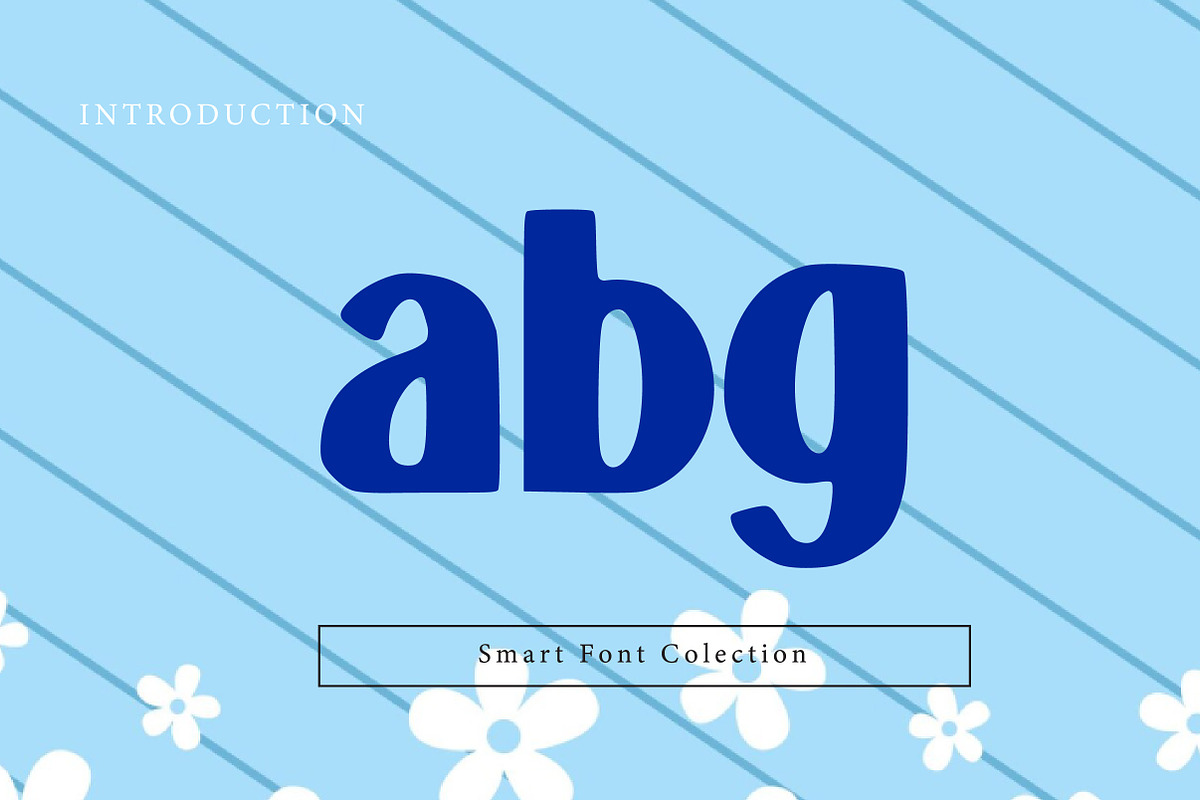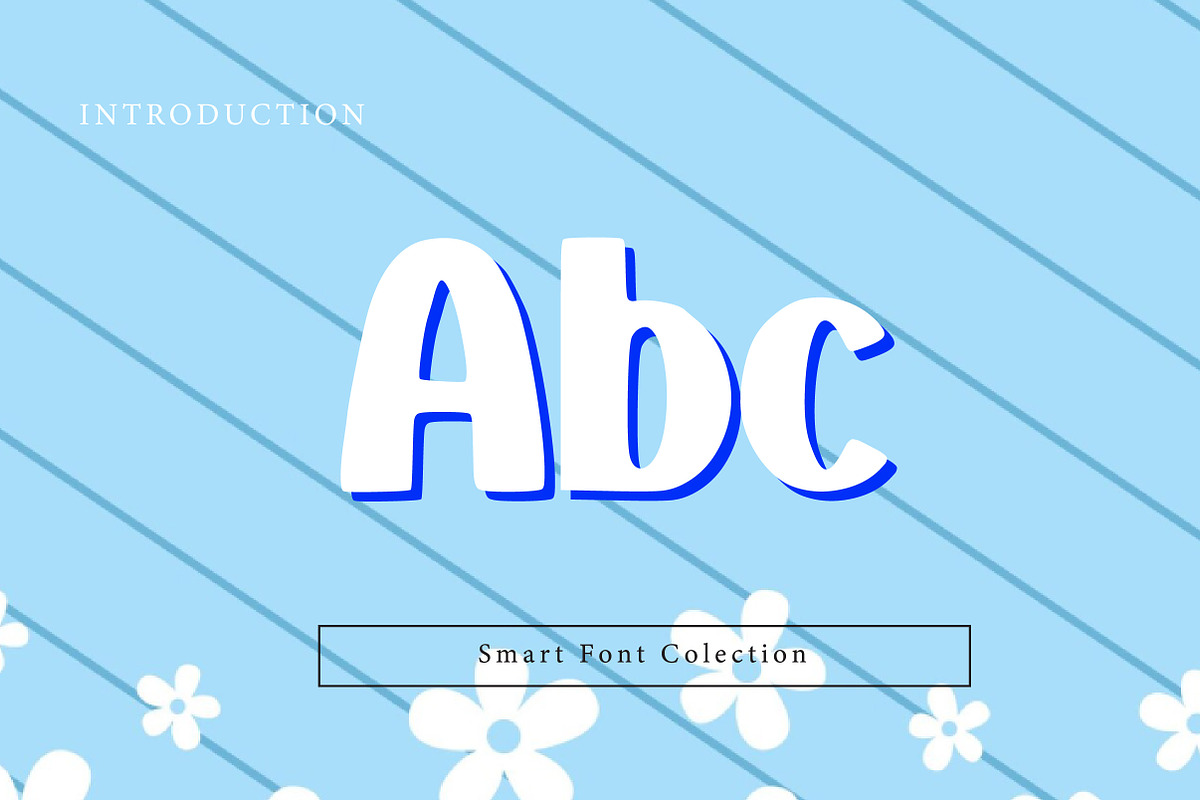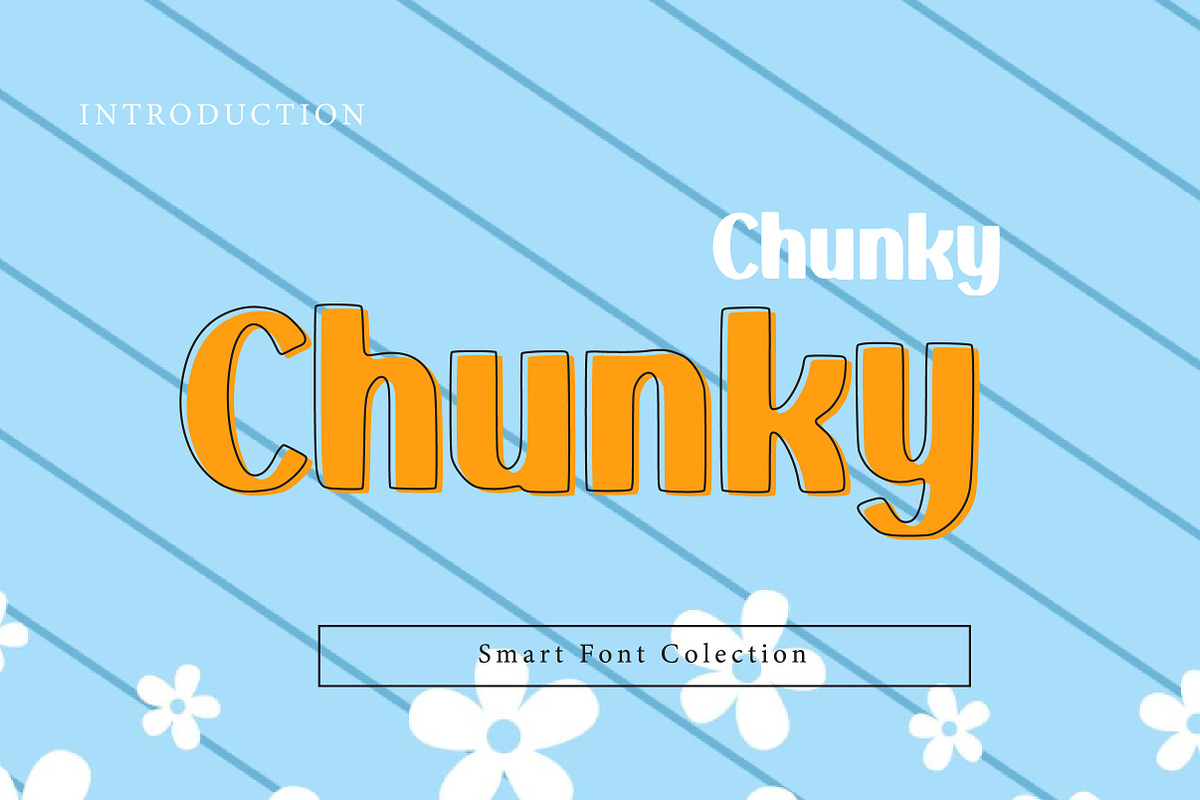
Chunky is a bold
Chunky is a bold, rounded, and playful display font designed to create instant impact with a fun personality. With thick strokes, soft curves, and strong readability, this font is perfect for logos, posters, kids projects, packaging, stickers, t-shirts, social media graphics, and eye-catching headlines. Chunky brings a cheerful modern vibe that works great for playful branding, cute typography, and creative design layouts.